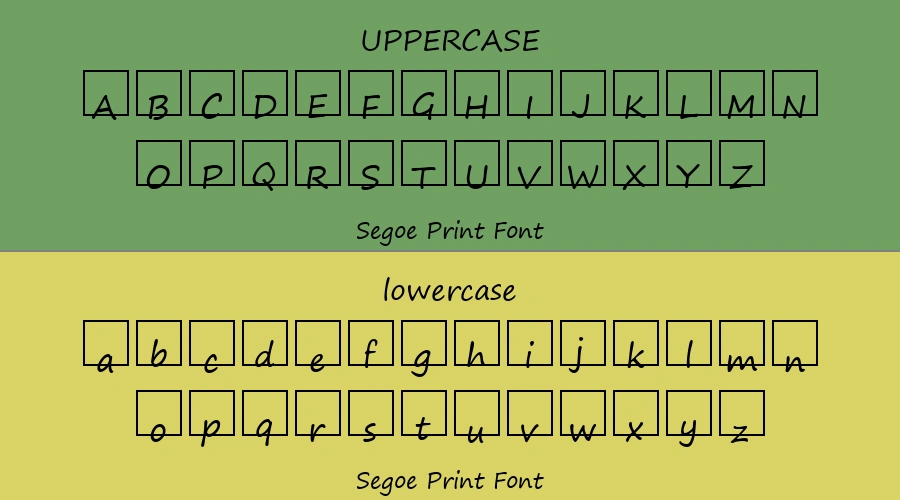
About Segoe Print Font
Segoe Print Font embodies typographic excellence through its masterful combination of ornamental caps and personality. Created for engineering drawings, this typeface delivers exceptional longevity and functional utility across all applications. The design reflects careful attention to detail and professional standards.
Advanced capabilities include distinctive expressive curves and versatile ordinals, giving designers creative control. When used in warning labels, Segoe Print Font exhibits remarkable detail retention. The harmonious balance between stem weight and artistic merit sets this typeface apart.